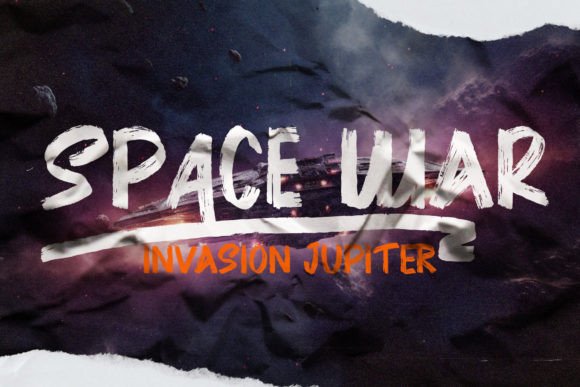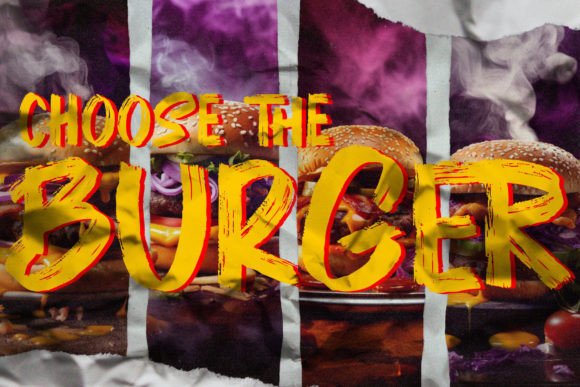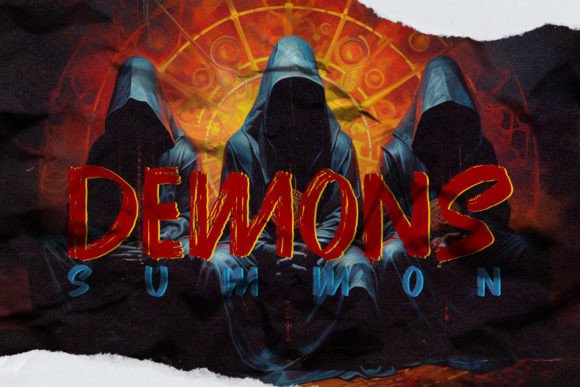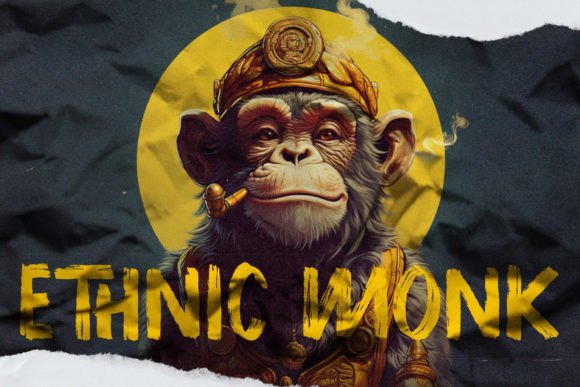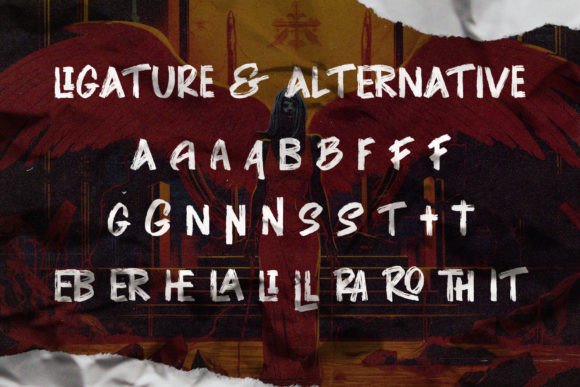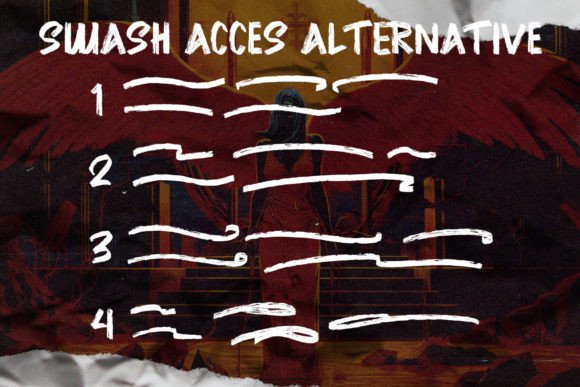
Introduction to Lakana Font
Do you remember the moment when you first fell in love with the imperfections of hand-painted typography? Perhaps it was a quirky invitation or a poster that caught your eye, featuring text that seemed to dance across the page with its unique, organic strokes. That’s the magic of Lakana Font – a design resource that adds a touch of authenticity and personality to any creative project. Whether you’re working on a high-quality branding material or a casual greeting card, Lakana Font’s versatility makes it a valuable addition to your design toolkit.
With its free download and transparent background, Lakana Font is an ideal choice for designers who want to add a layer of artistic charm to their work. Its organic, hand-painted appearance is perfect for creating a sense of warmth and personality in your designs, making it a go-to choice for designers who value high-quality typography that stands out from the crowd.
Honest Review: Lakana Font
I recently had the chance to work with the Lakana Font, and I must say it’s a great addition to any design project. ✨ The font is a free download, which is always a plus in my book. It’s perfect for those creative projects where you need a high-quality font that won’t break the bank.
One of the things I like about the Lakana Font is its versatility. It’s available in various styles and weights, making it easy to find the perfect fit for your design. The transparent background is also a nice touch, allowing you to easily place it on top of any image or background.
Here are some of the features that make the Lakana Font stand out:
- Various styles and weights available
Tips for Getting the Most Out of Lakana Font
To get the most out of the Lakana Font, use it in combination with other design elements, such as images and graphics. You can also experiment with different font sizes and styles to create a unique and eye-catching design.
The Lakana Font is commonly used in a variety of creative projects, including logos, brochures, and business cards. It’s also ideal for use in digital designs, such as social media graphics and presentations.